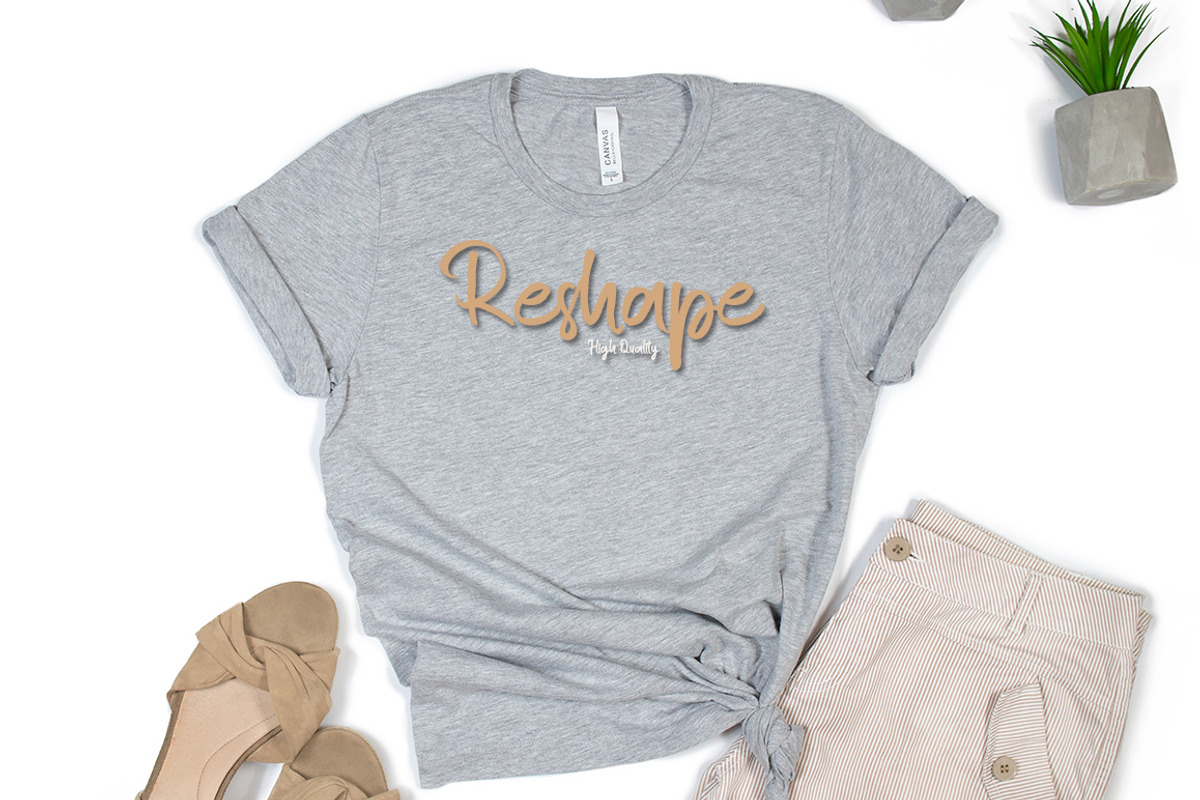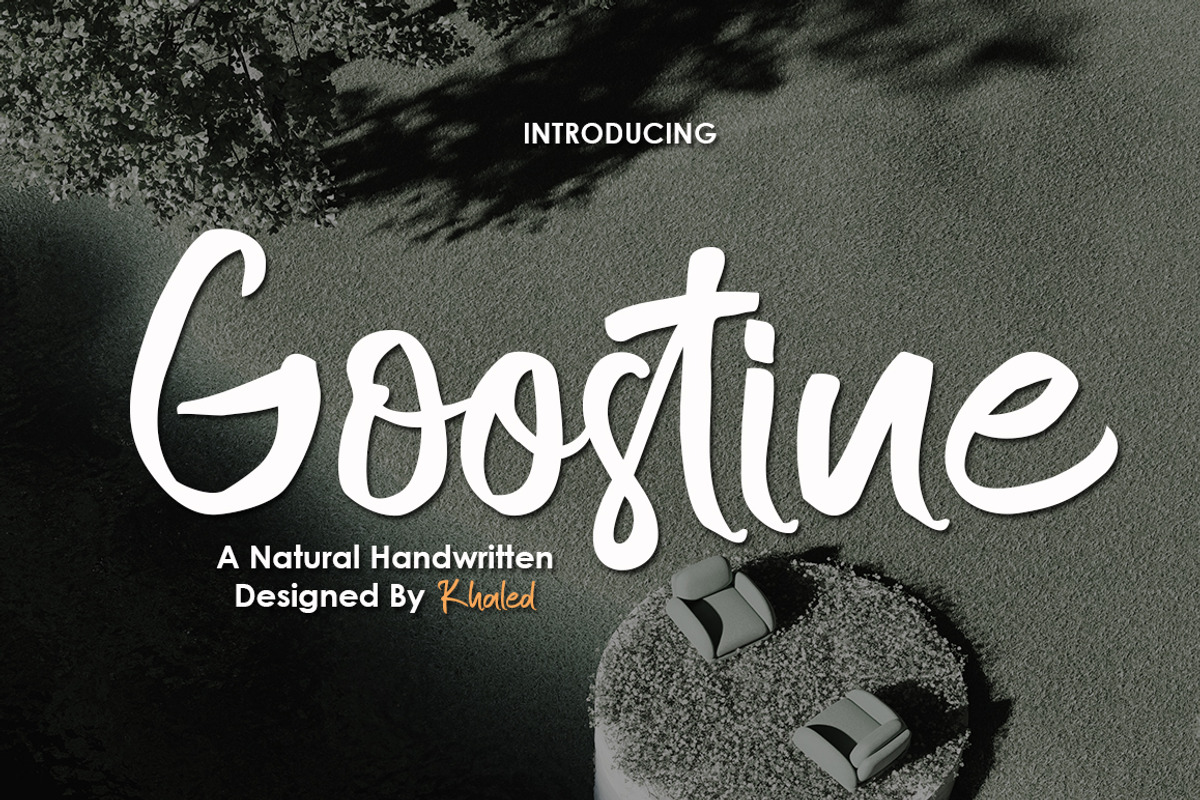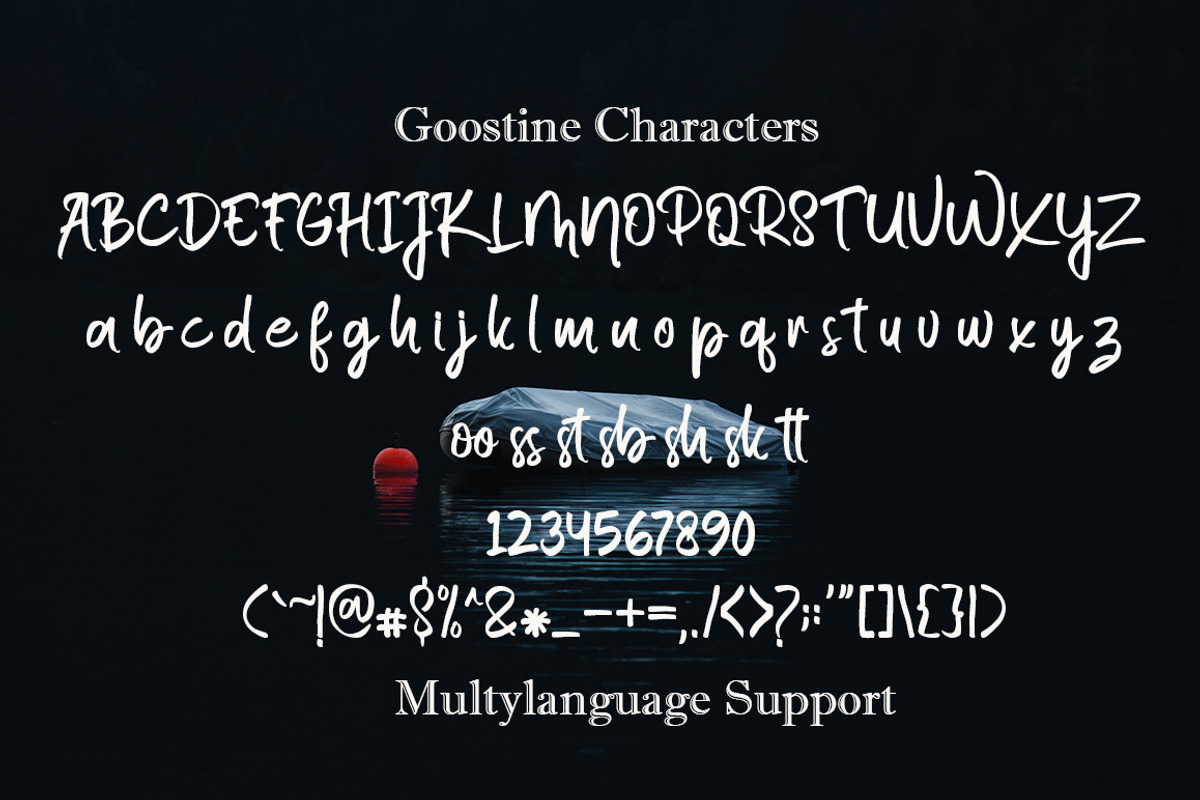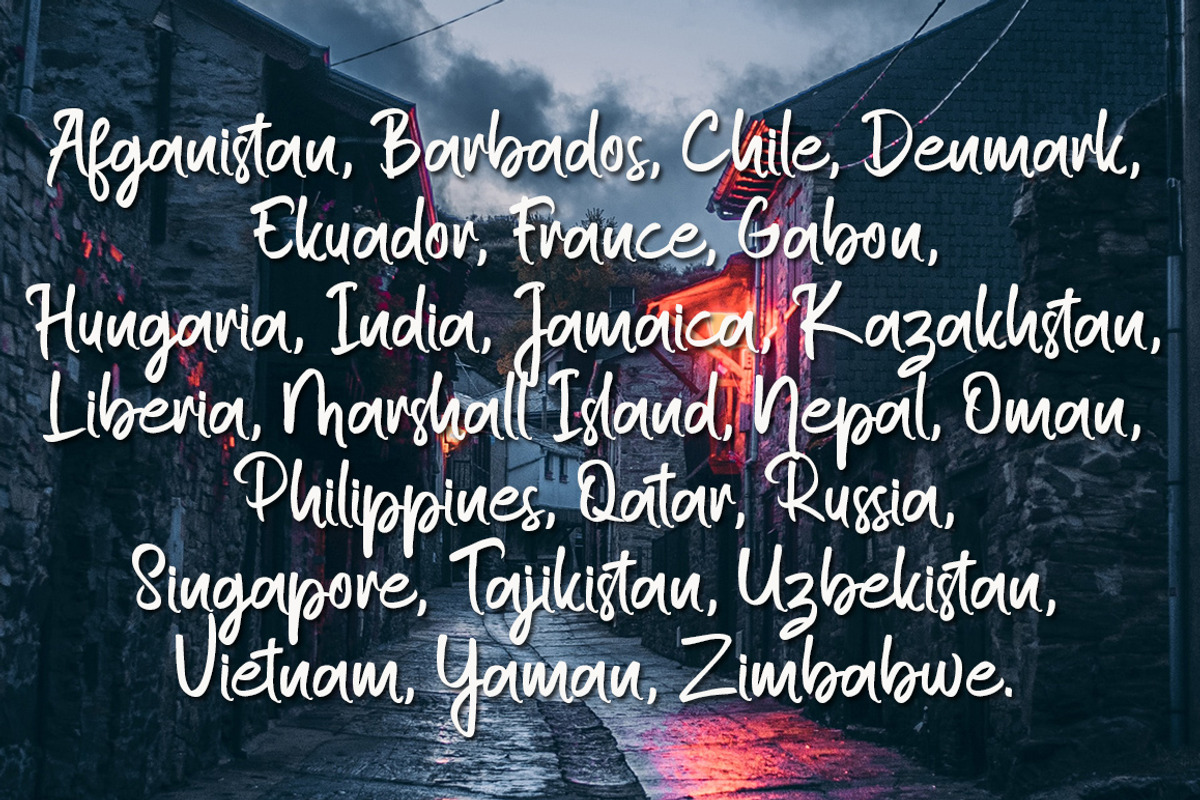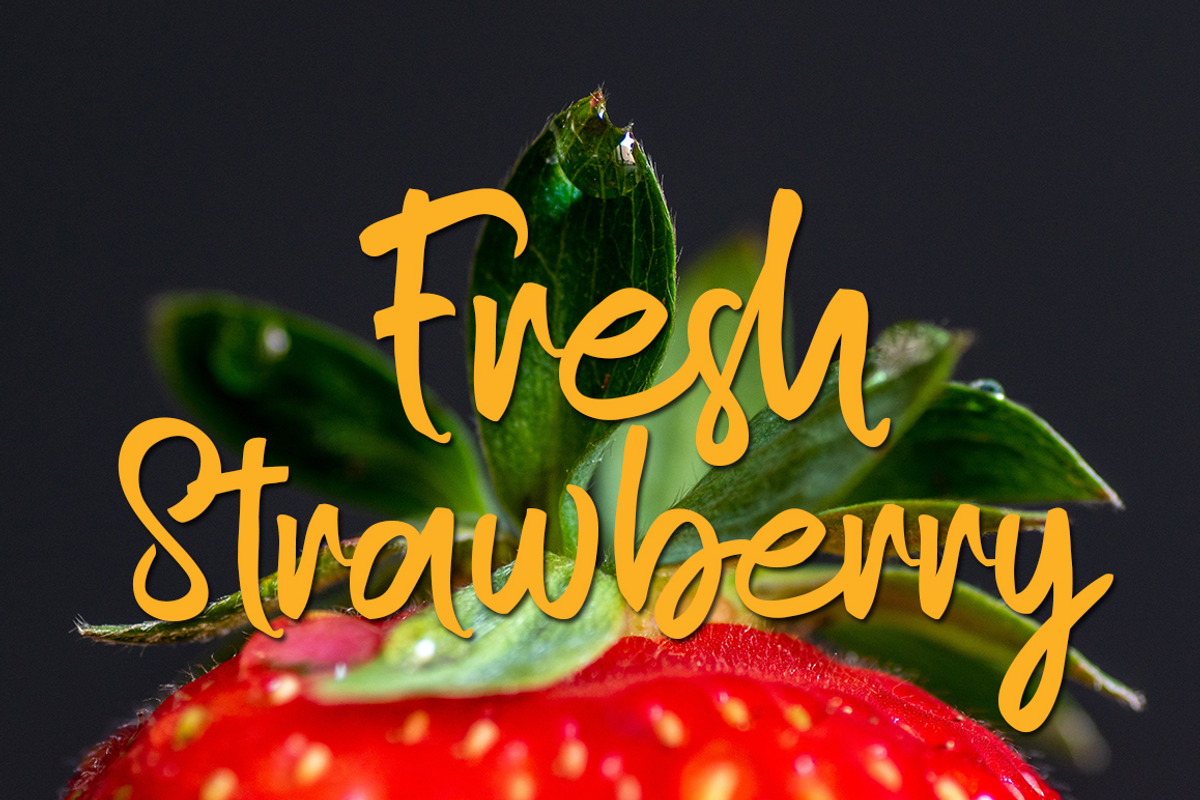
Goostine
Goostine is a modern handwritten brush font, organic, dynamic and energetic sytle.Can used for various purposes. such as the title, signature, logo, correspondence, wedding invitations, letterhead, signage, labels, newsletters, posters, badges, etc.
I looked at every single handwritten font on this plattform - and chose this one. And I'm happy I did, it works great, the kerning is good and there are all German letters in there. I just wish there were some alternate letters, like "n", so that when you have a word with "nn" in it, the letters don't look the same.